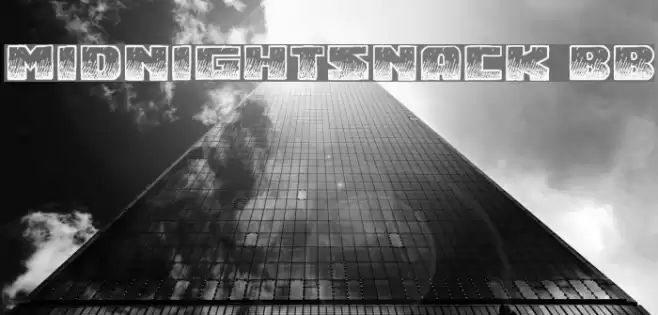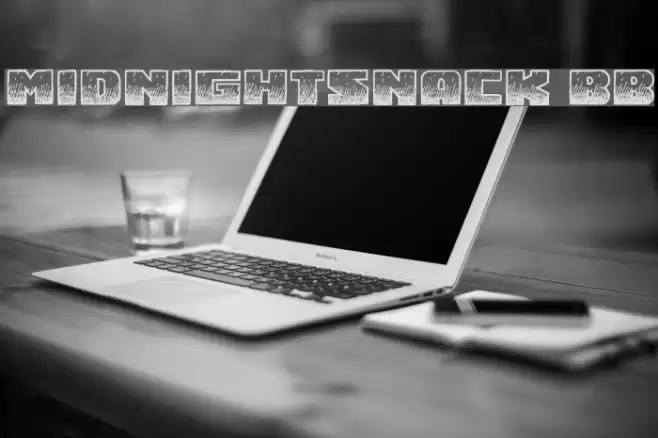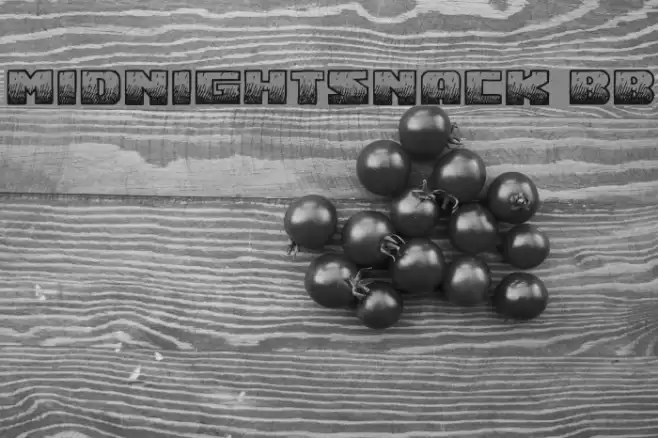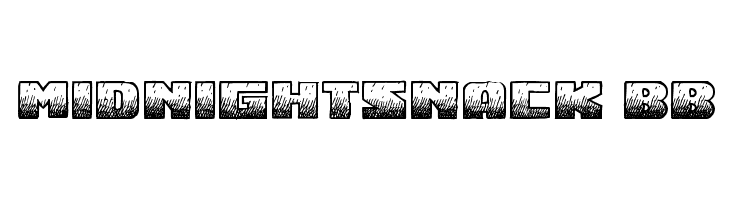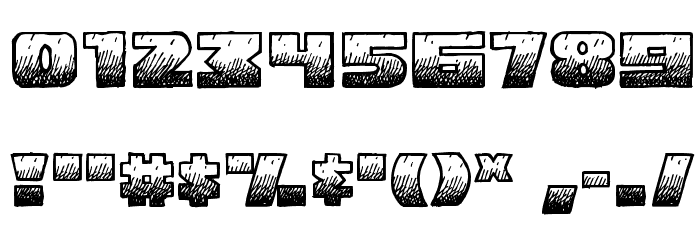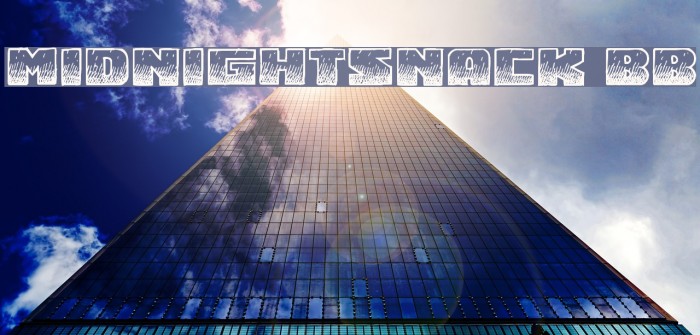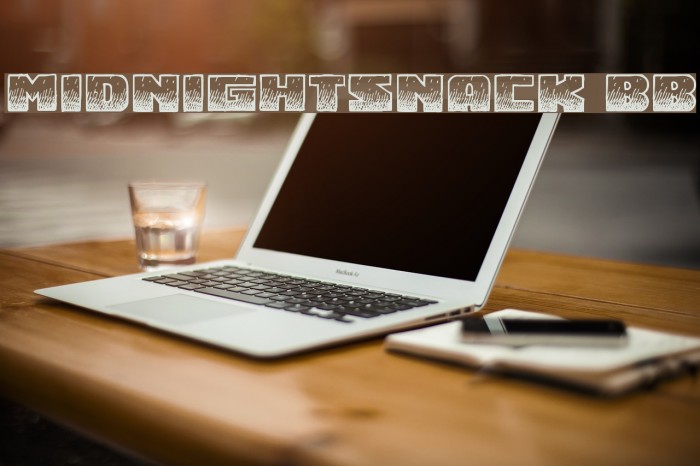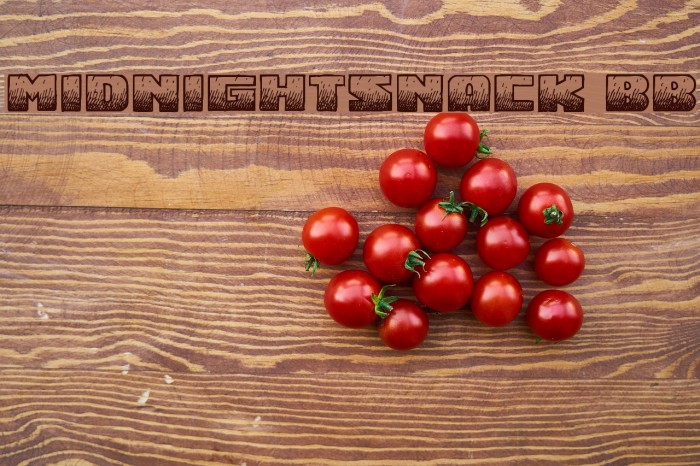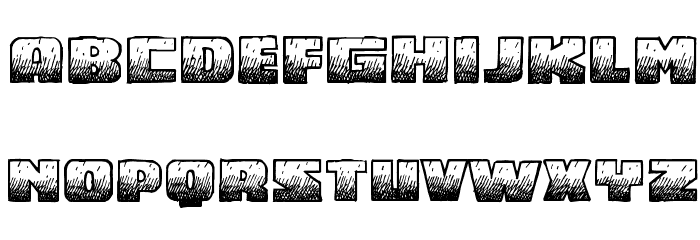
MidnightSnack BB Font
MidnightSnack BB Description
This font features a bold, playful design with a hand-drawn, textured appearance. Each character is filled with intricate line work, giving it a dynamic and energetic feel. The letters are blocky and robust, with a slight 3D effect created by the shading. This style is reminiscent of comic book art, making it both eye-catching and fun. The font maintains a consistent weight throughout, ensuring readability while still offering a unique visual appeal. Its decorative nature makes it suitable for projects that require a touch of whimsy and creativity.
A bold, textured font with a playful, hand-drawn style from Uncategorized fonts.
- Proposed Projects: Ideal for comic books, children's books, posters, and playful branding.
- Overall Style: Playful, Comic